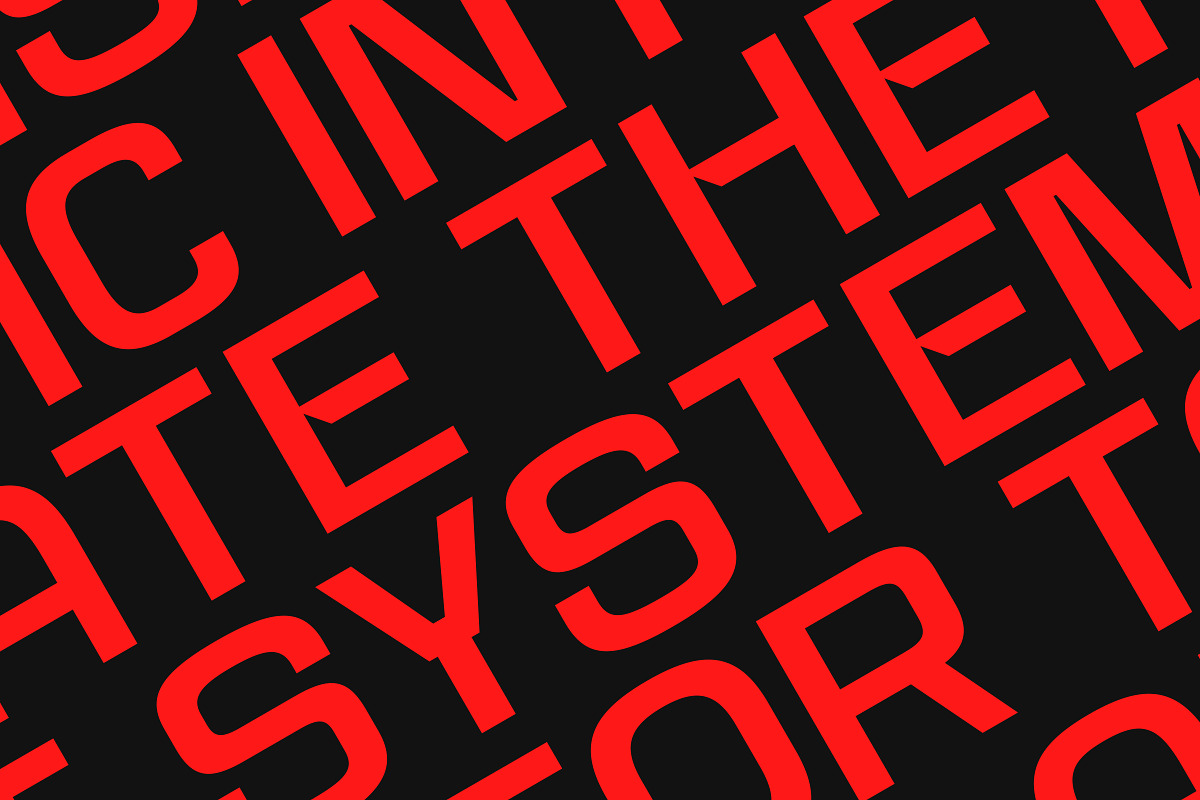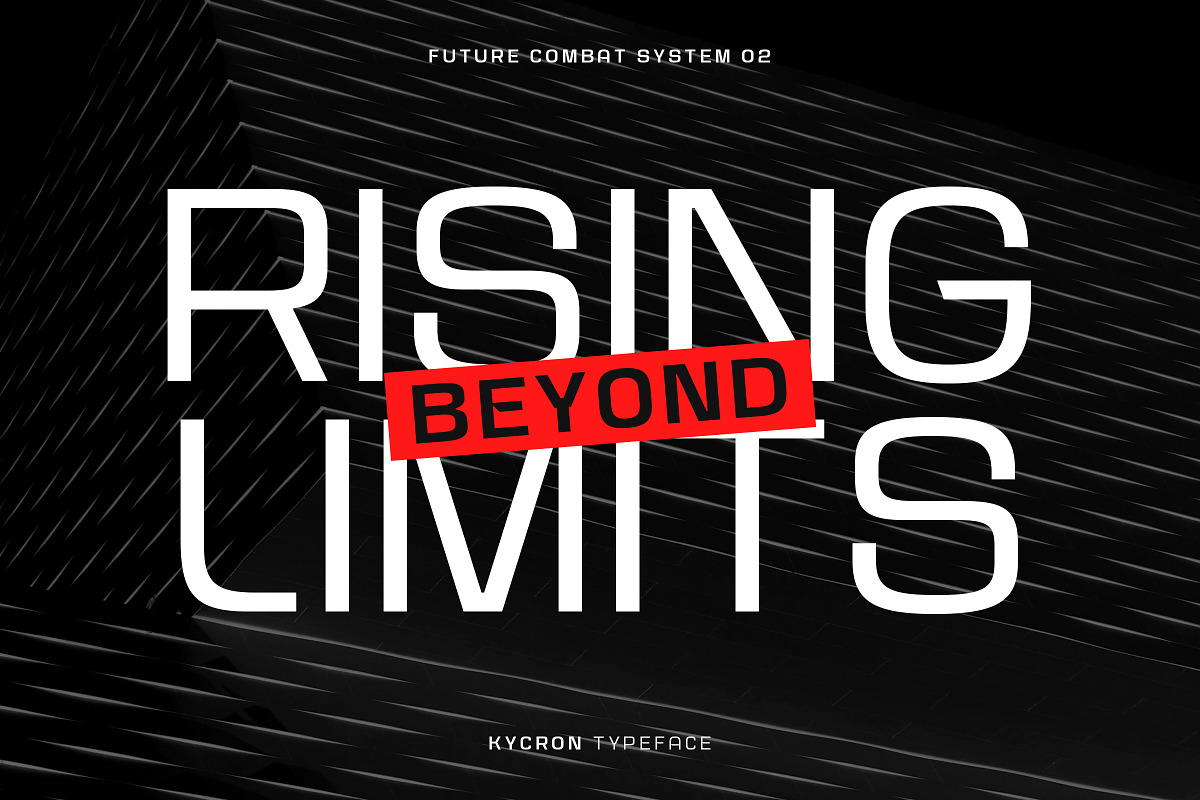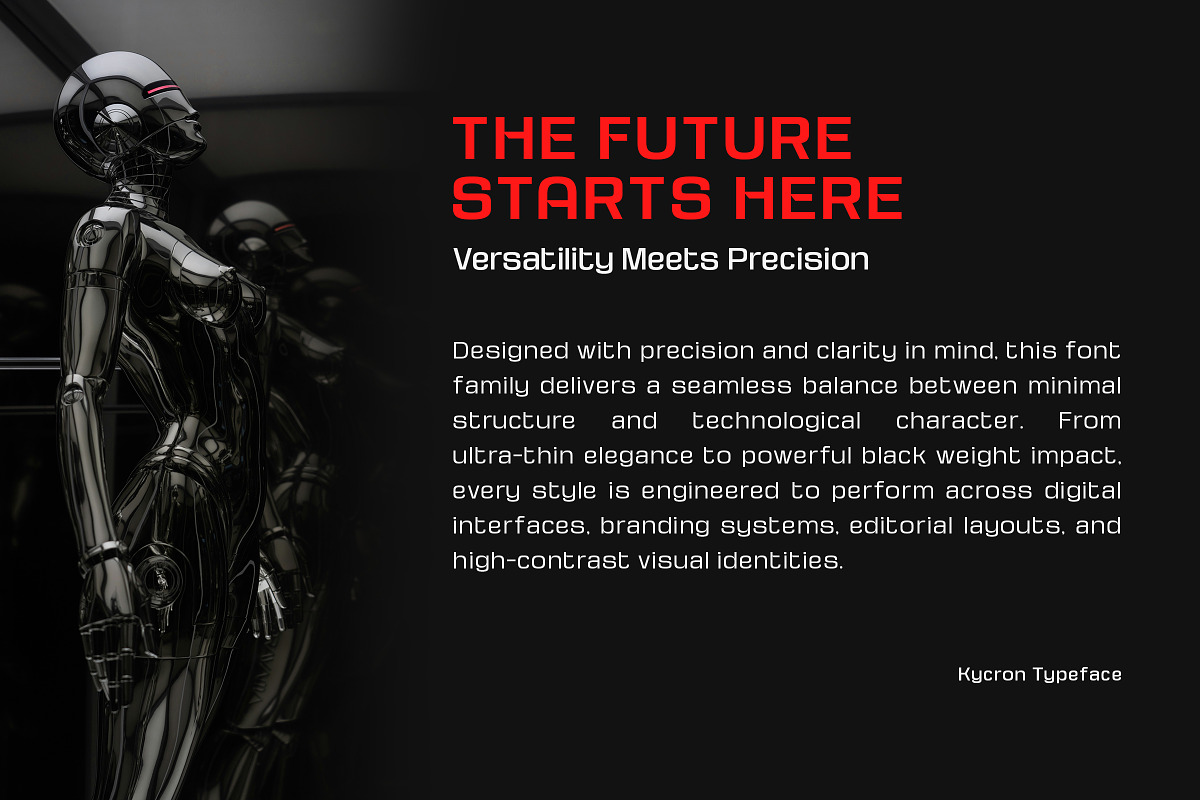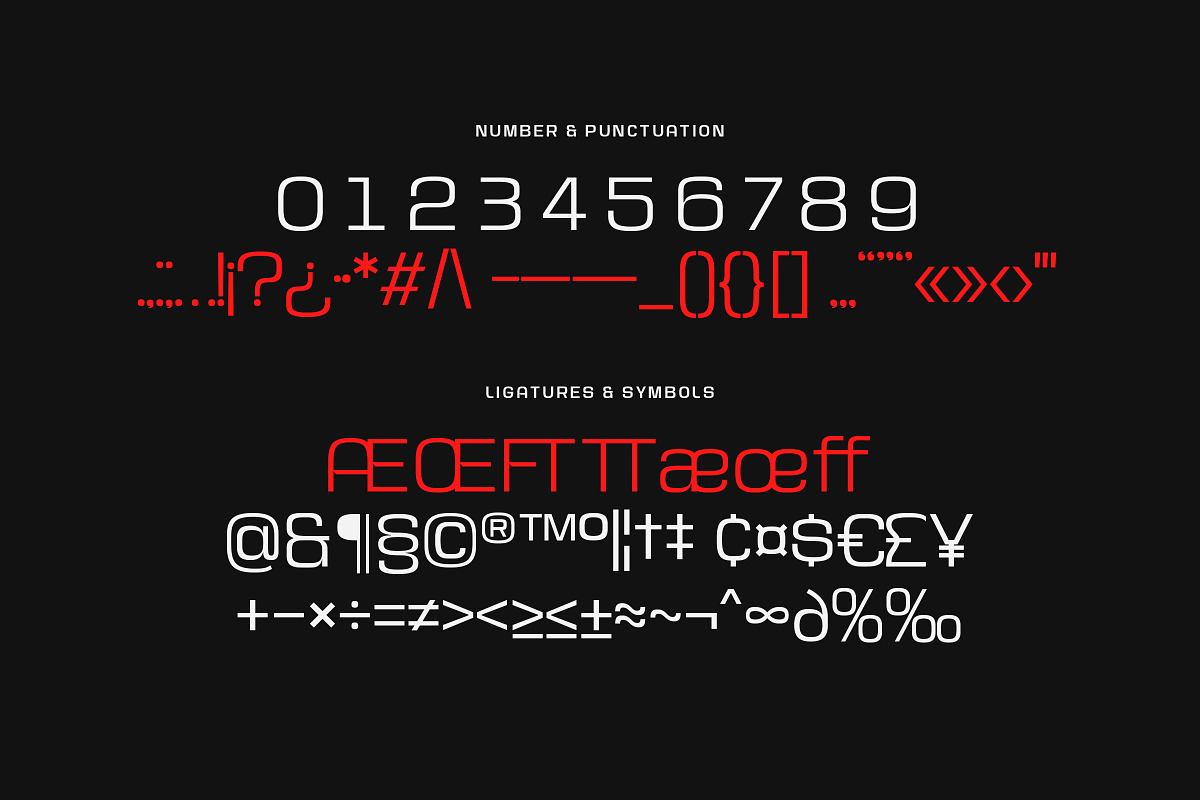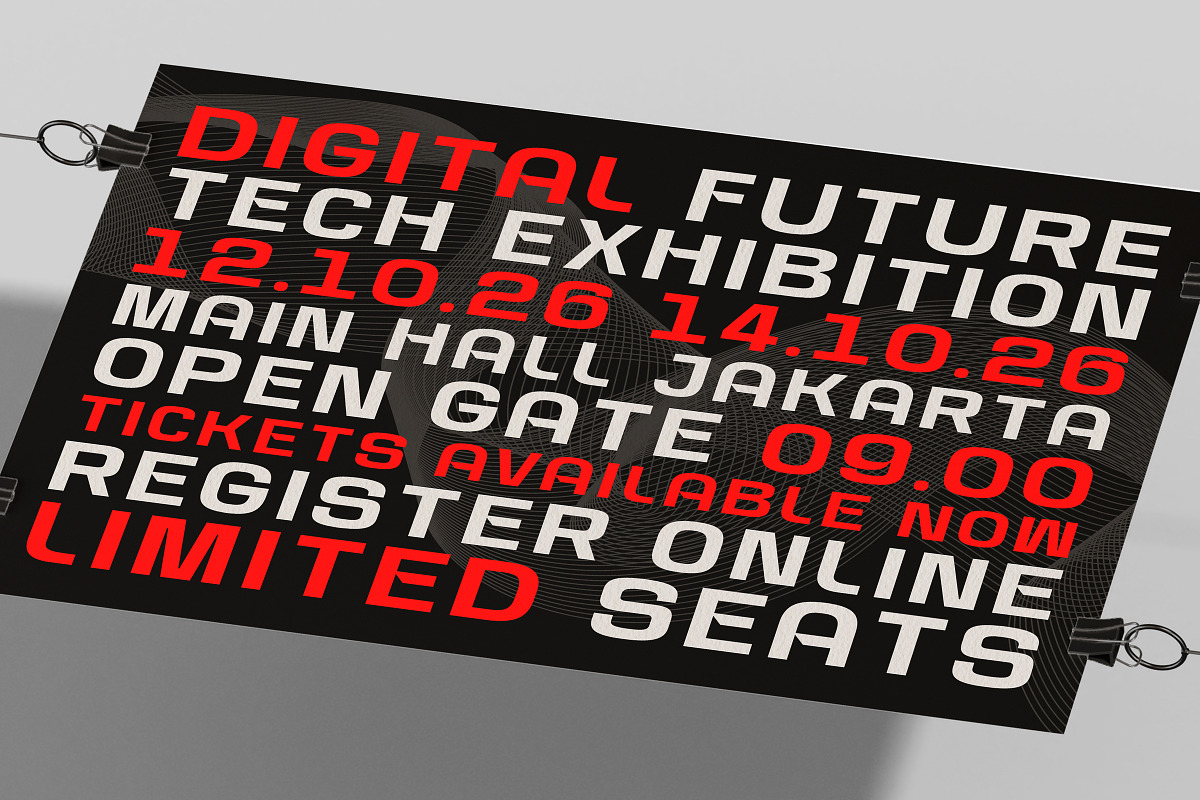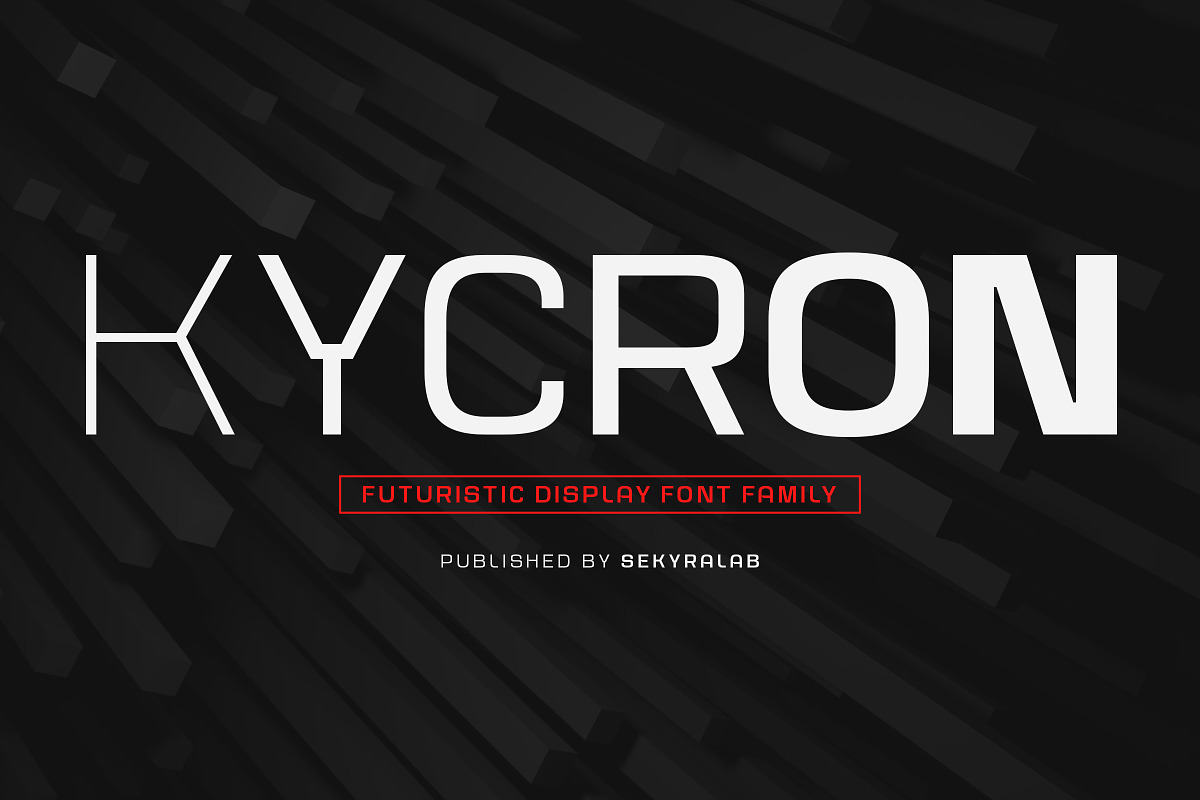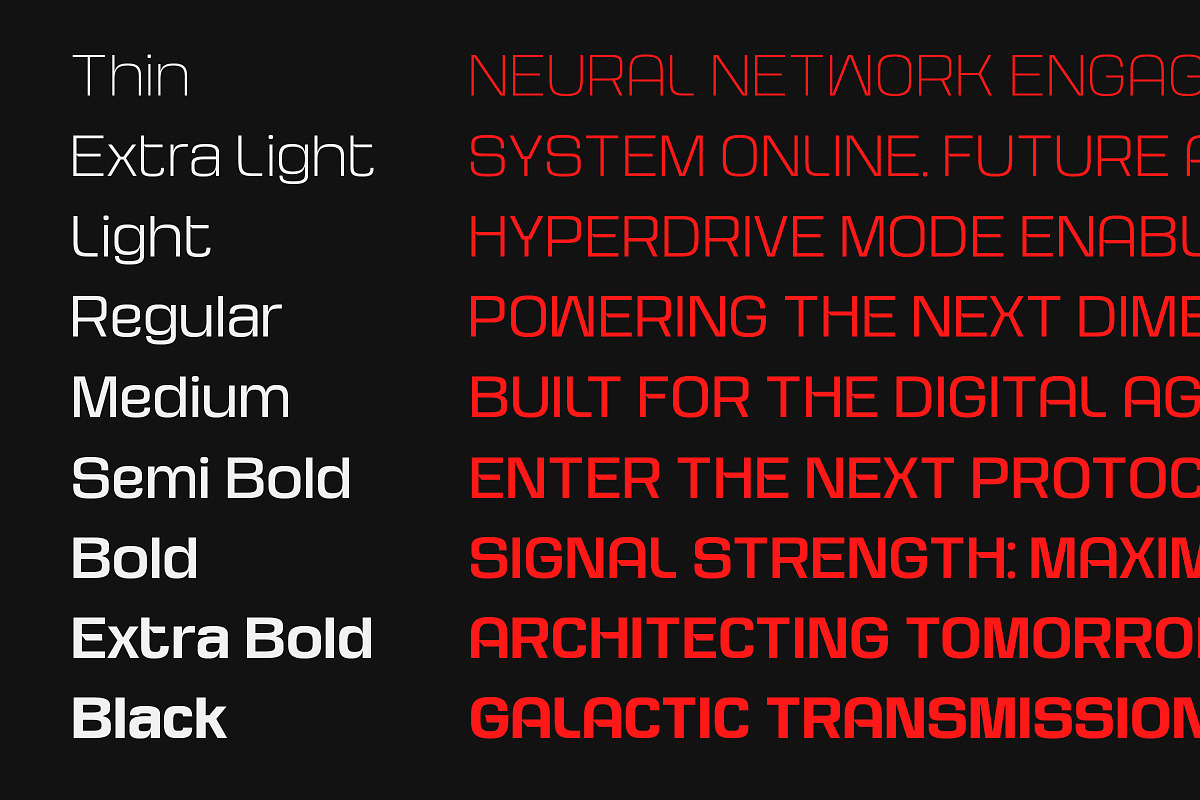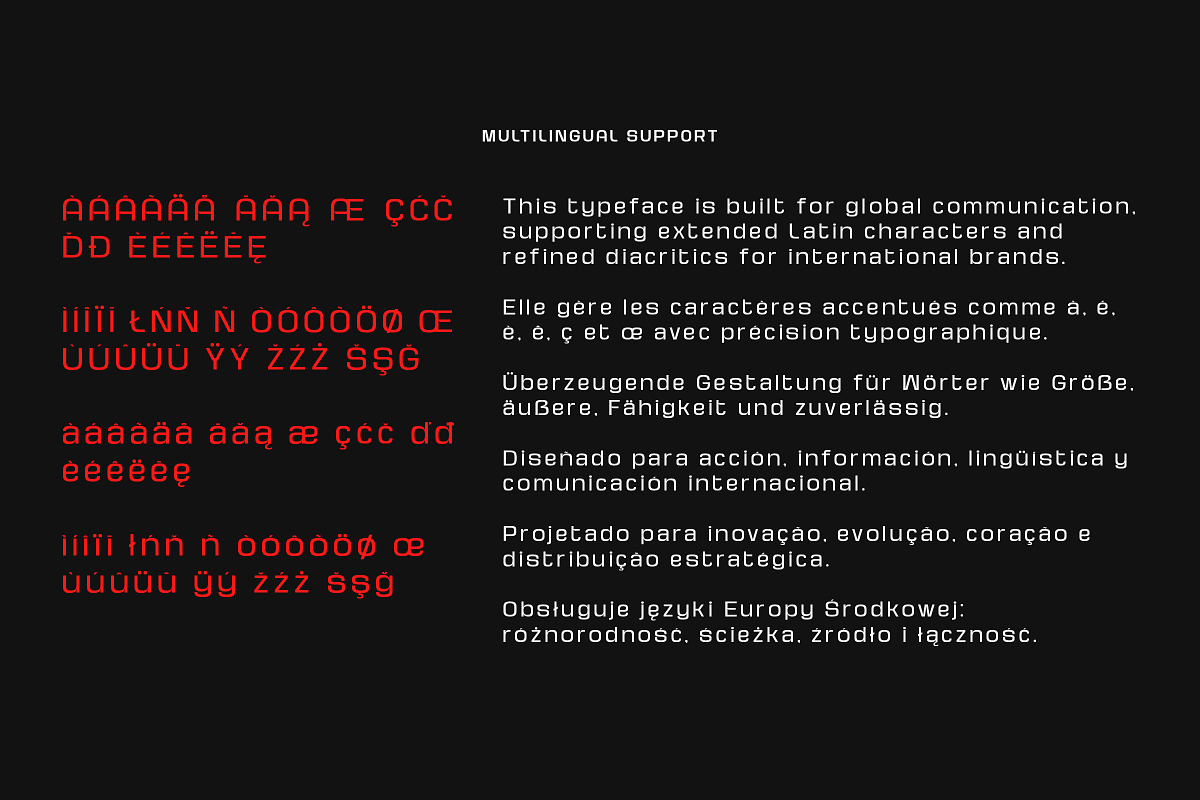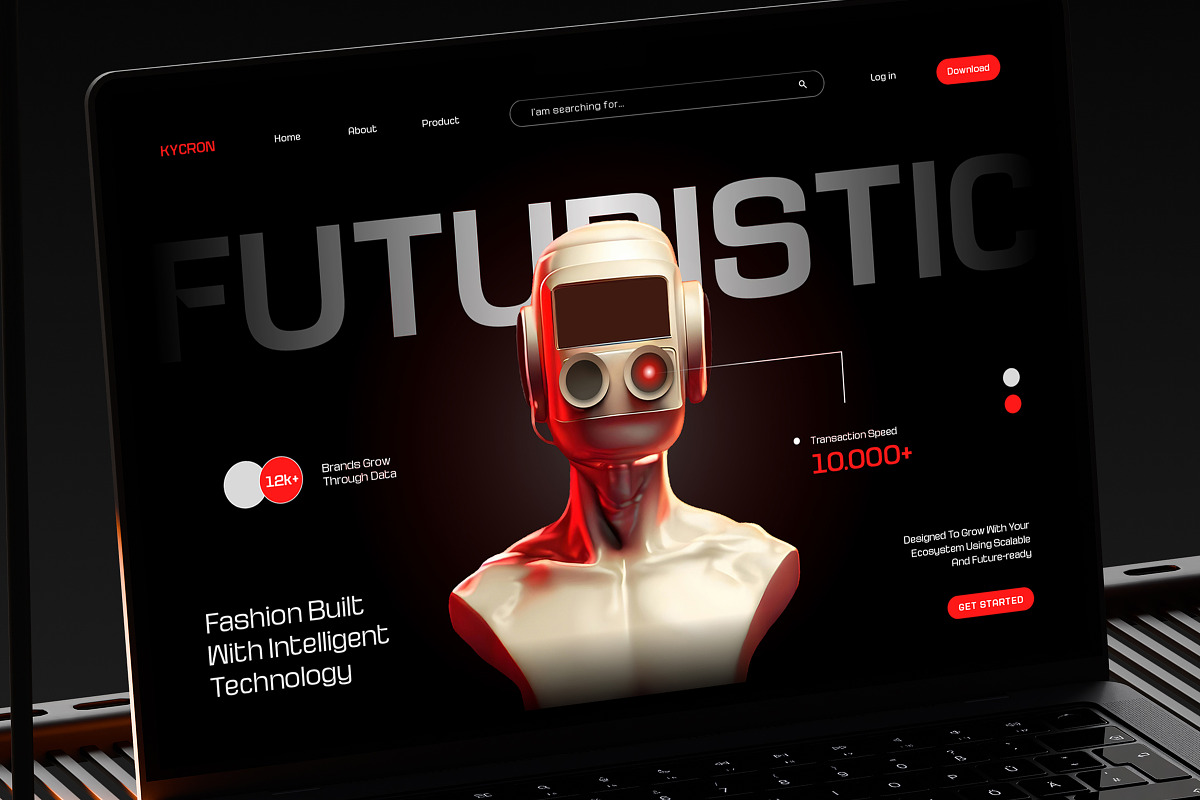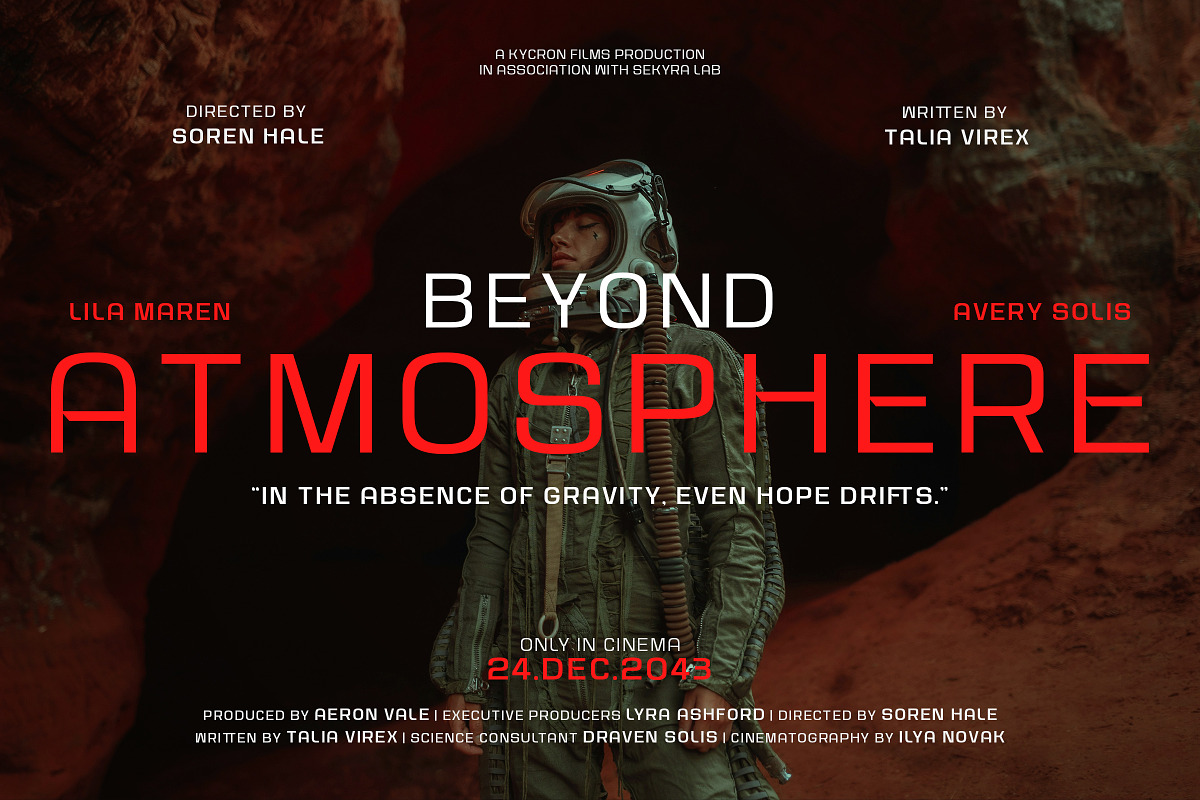
Kycron - Futuristic Sans Font Family
Kycron is a modern futuristic font family designed with precision, clarity, and technological aesthetics in mind. Featuring clean geometric shapes and sleek minimal strokes, this typeface delivers a high-tech visual identity suitable for forward-thinking design.
With 9 carefully crafted weights, Kycron offers full flexibility—from ultra-light elegance to powerful bold impact—making it ideal for both display and functional typography.
Perfect for technology branding, UI/UX design, sci-fi themes, digital products, editorial layouts, posters, and modern logos.
Key Features: • 9 Weights: Thin, Extra Light, Light, Regular, Medium, Semi Bold, Bold, Extra Bold, Black • Uppercase & Lowercase characters • Numbers & Punctuation • Ligatures & Symbols • Multilingual Support • Clean, futuristic geometry • Formats: OTF, TTF, WOFF